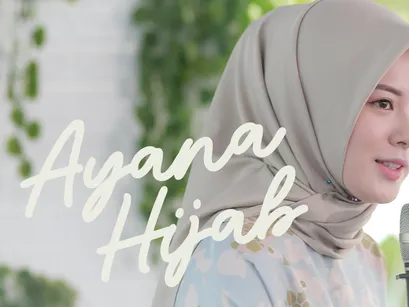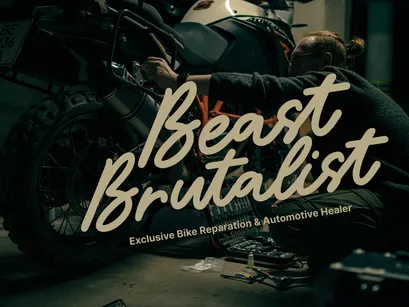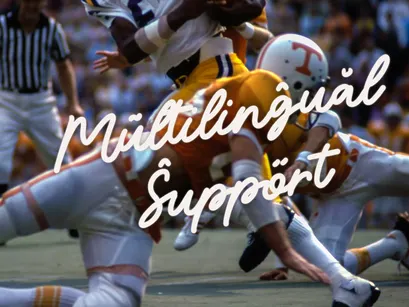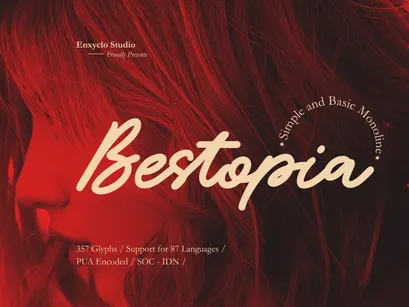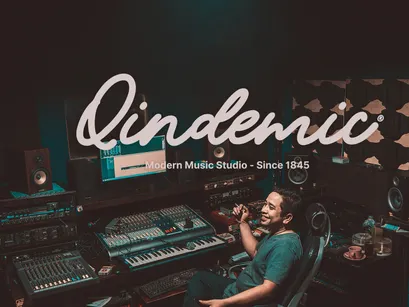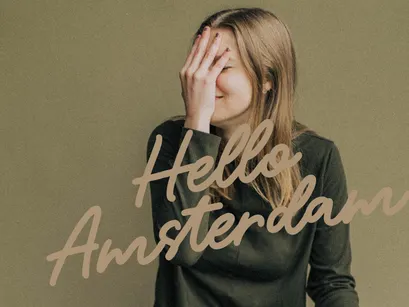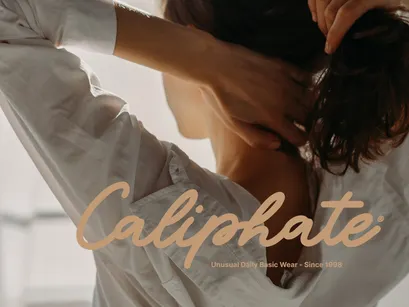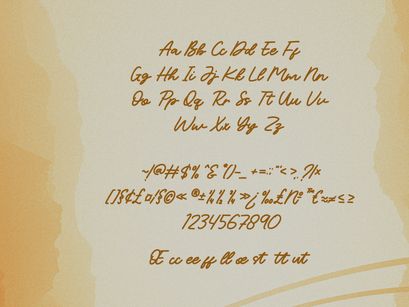
NCL BESTOPIA - Simple Monoline Font
NCL BESTOPIA is a simple and basic monoline script font. It's fun, unique, stylish and modern-classic display font. Masterfully designed to become a true favorite, this font has the potential to bring each of your creative ideas to the highest level! It was purposely crafted to be used in large point sizes, although it doesn’t lose its magic in small point sizes. It is perfect for headline, billboard, magazines, website, titles, poster, branding, t-shirt design, and logos. No matter the topic, this font will be an incredible asset to your fonts’ library, as it has the potential to elevate any creation. With this beautiful font, absolutely you can make your project stand out from the rest. See the previews above to get some inspiration on how to use them.
• Contains 357 Glyphs
• Uppercase, Lowercase & Numeral
• Punctuation, Symbol & Currencies
• Multilingual Support. Support for 87 languages: Afrikaans, Albanian, Asu, Basque, Bemba, Bena, Breton, Catalan, Chiga, Colognian, Cornish, Croatian, Czech, Danish, Dutch, Embu, English, Esperanto, Estonian, Filipino, Finnish, French, Friulian, Galician, German, Gusii, Hungarian, Indonesian, Irish, Italian, Kabuverdianu, Kalenjin, Kamba, Kikuyu, Kinyarwanda, Latvian, Lithuanian, Lower Sorbian, Luo Luxembourgish, Luyia, Machame, Makhuwa-Meetto, Makonde, Malagasy, Maltese, Manx, Meru, Morisyen, North Ndebele, Norwegian Bokmål, Norwegian Nynorsk, Nyankole, Oromo, Polish, Portuguese, Quechua, Romansh, Rombo, Rundi, Rwa, Samburu, Sango, Sangu, Scottish Gaelic, Sena, Serbian, Shambala, Shona, Slovak, Soga, Somali, Spanish, Swahili, Swedish, Swiss German, Taita, Teso, Turkish, Upper Sorbian, Uzbek (Latin), Volapük, Vunjo, Walser, Welsh, Western Frisian, Zulu.